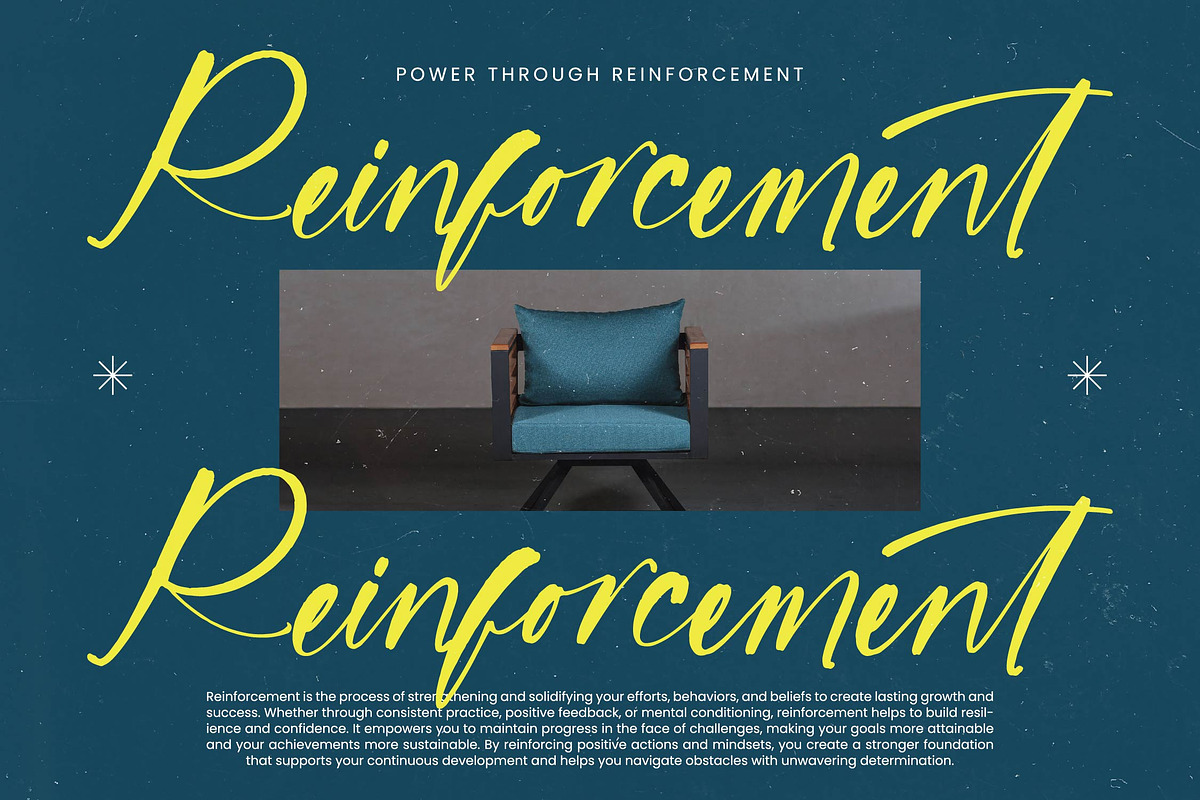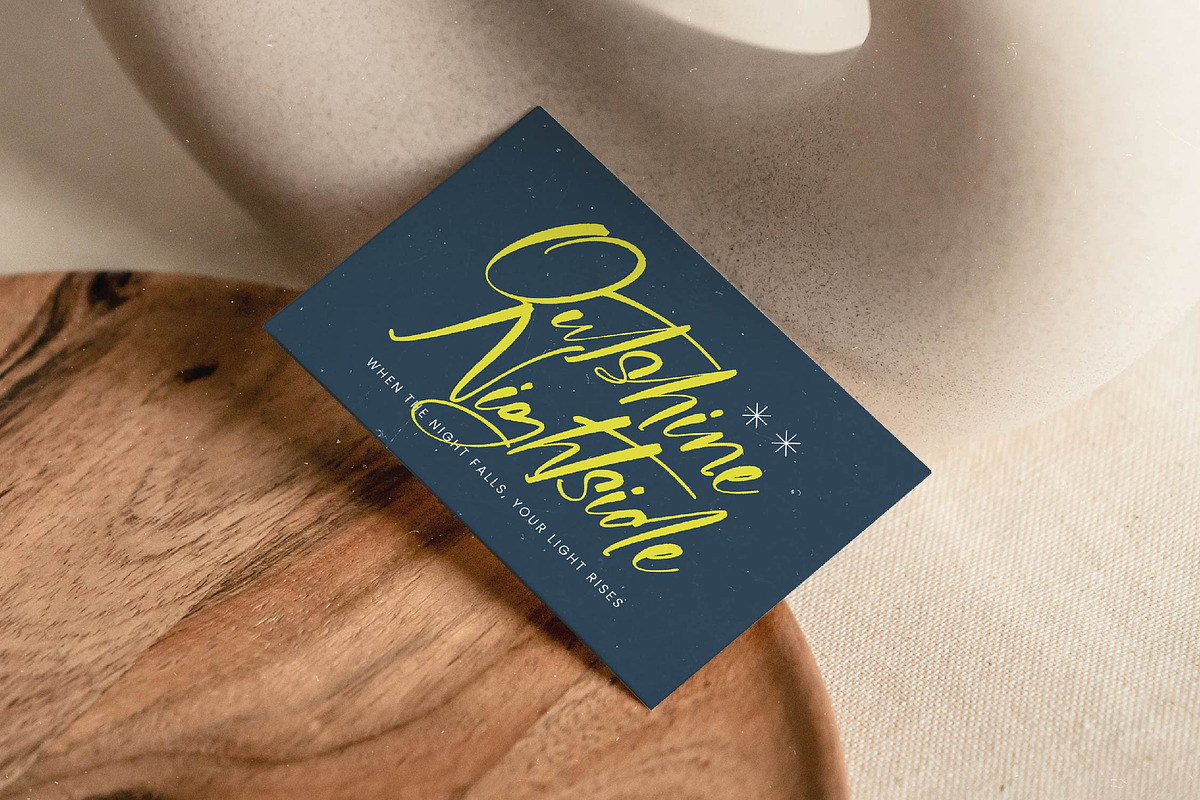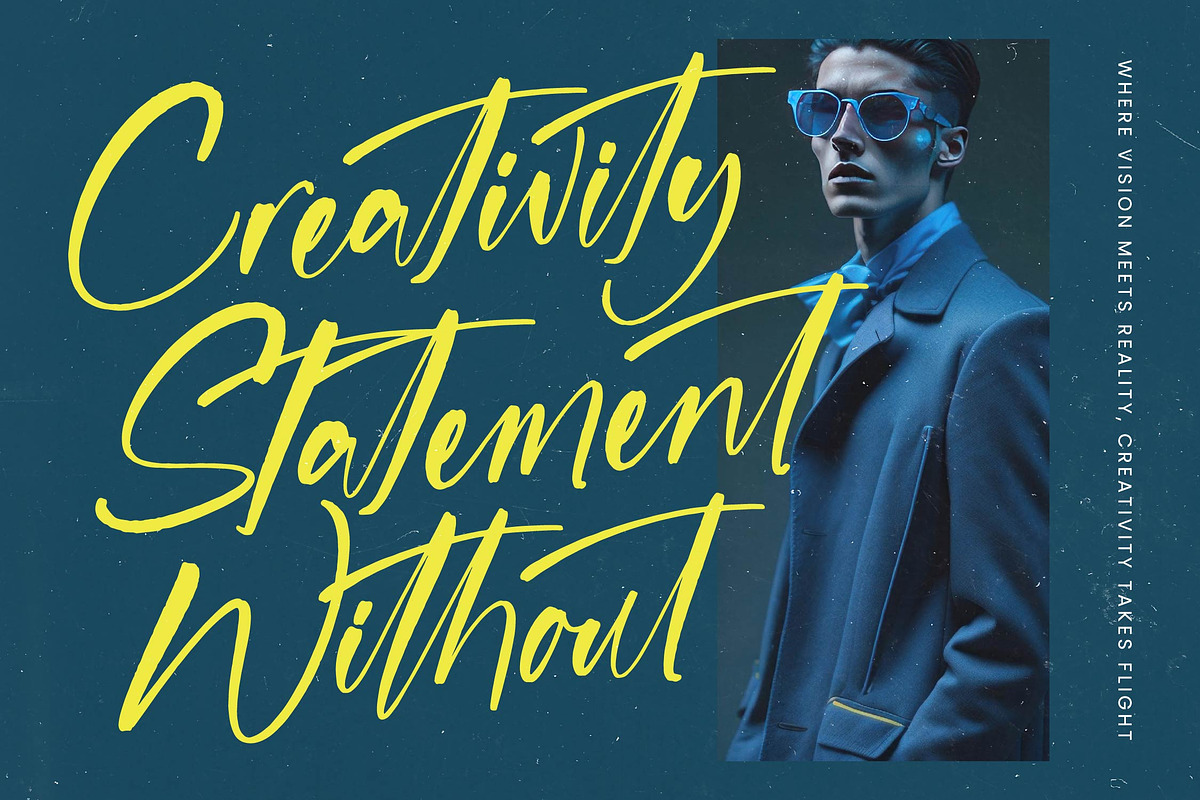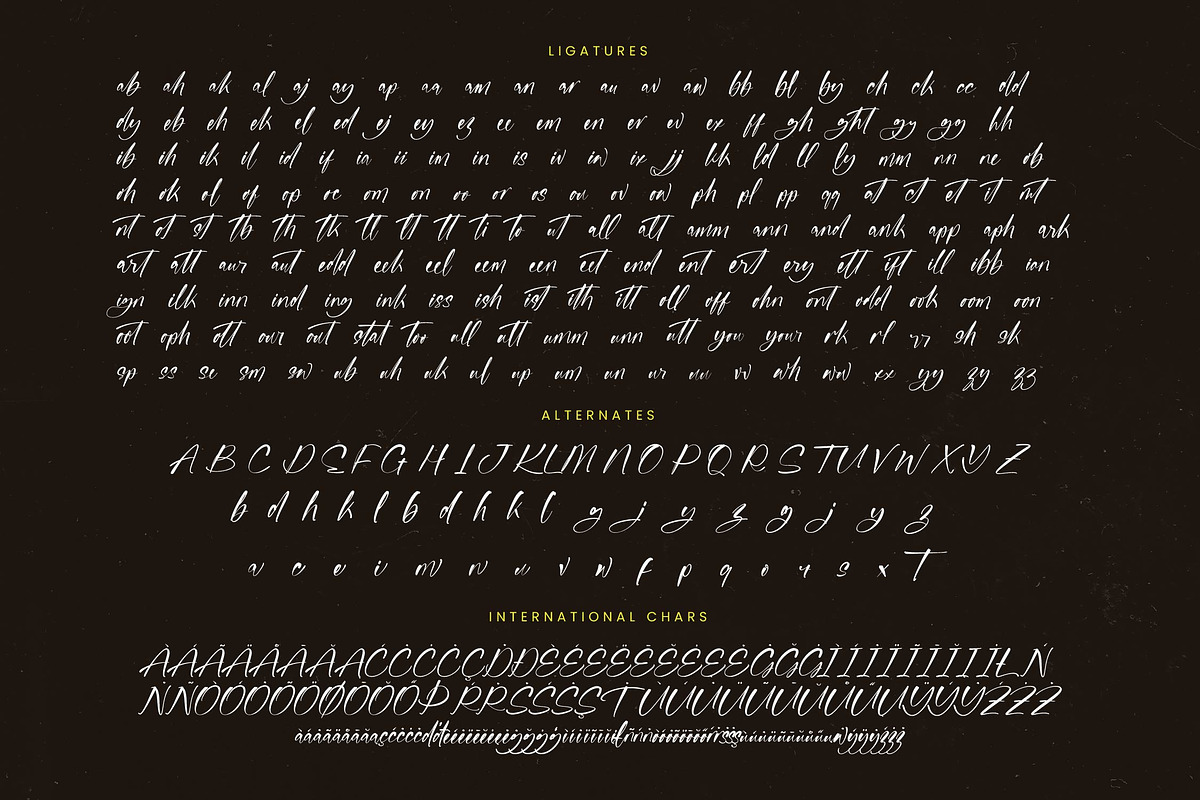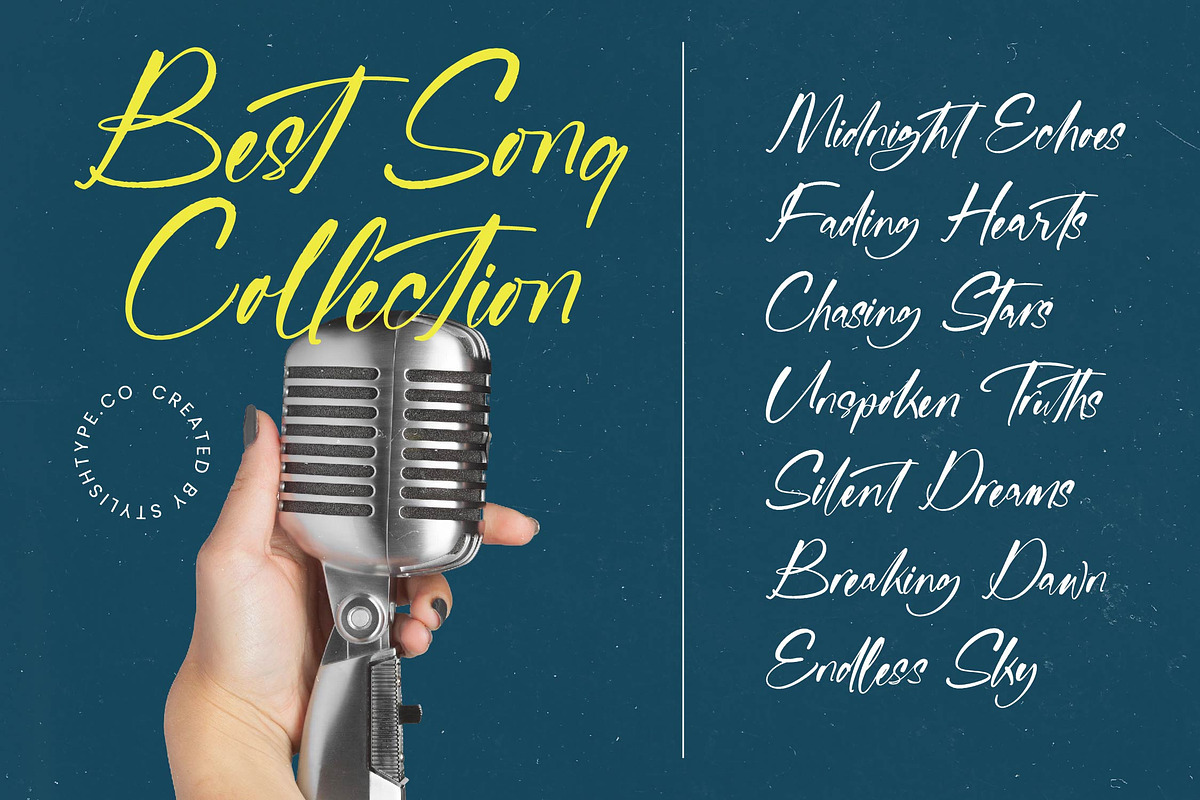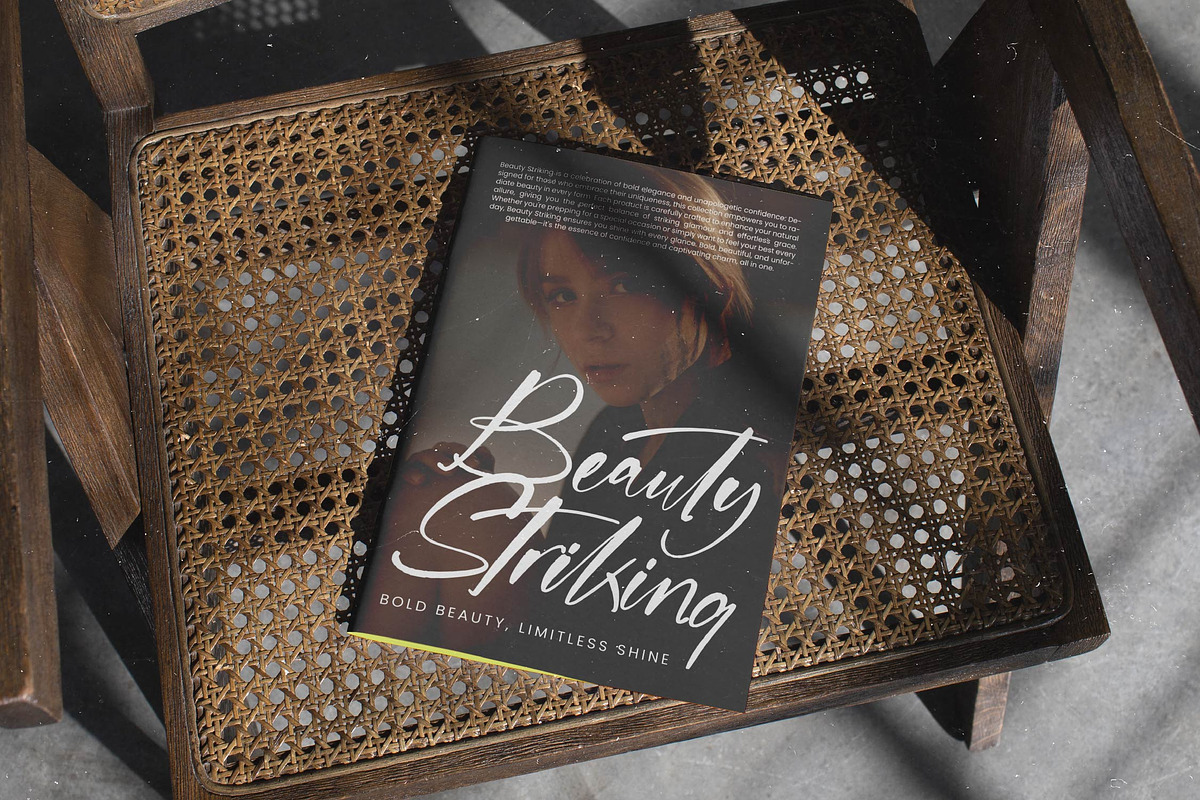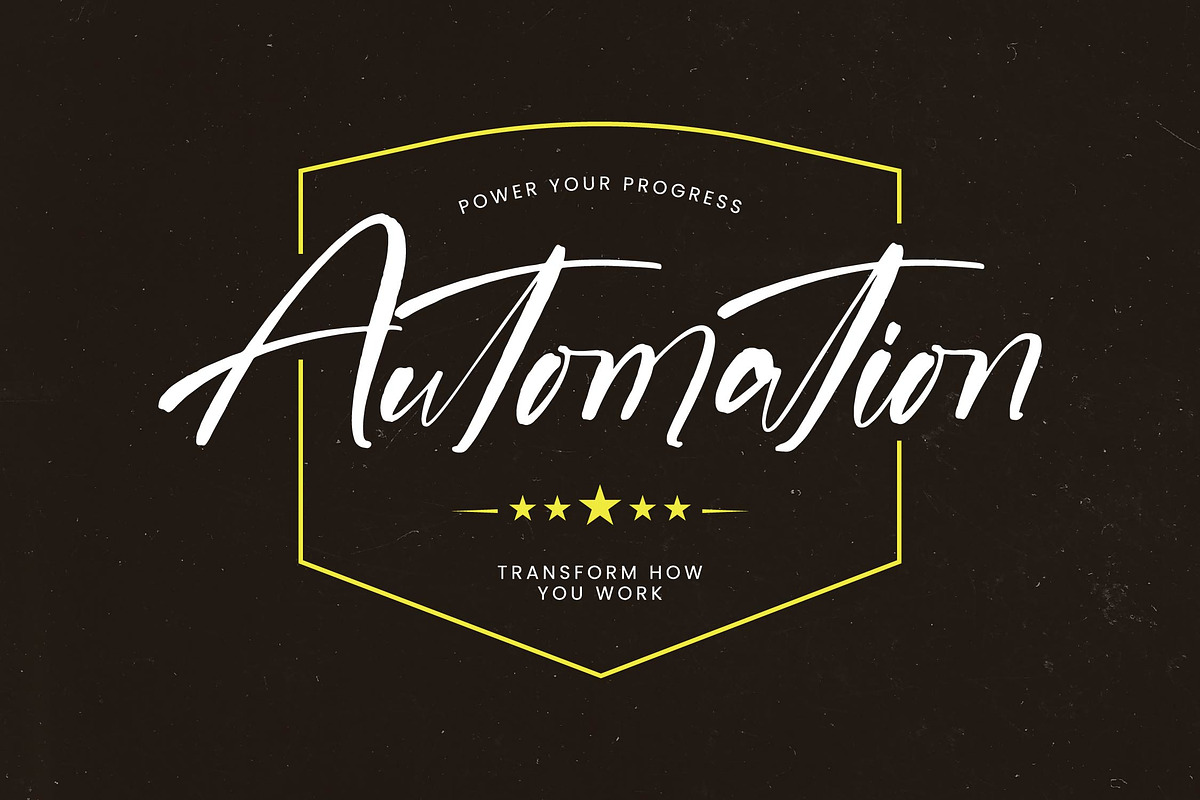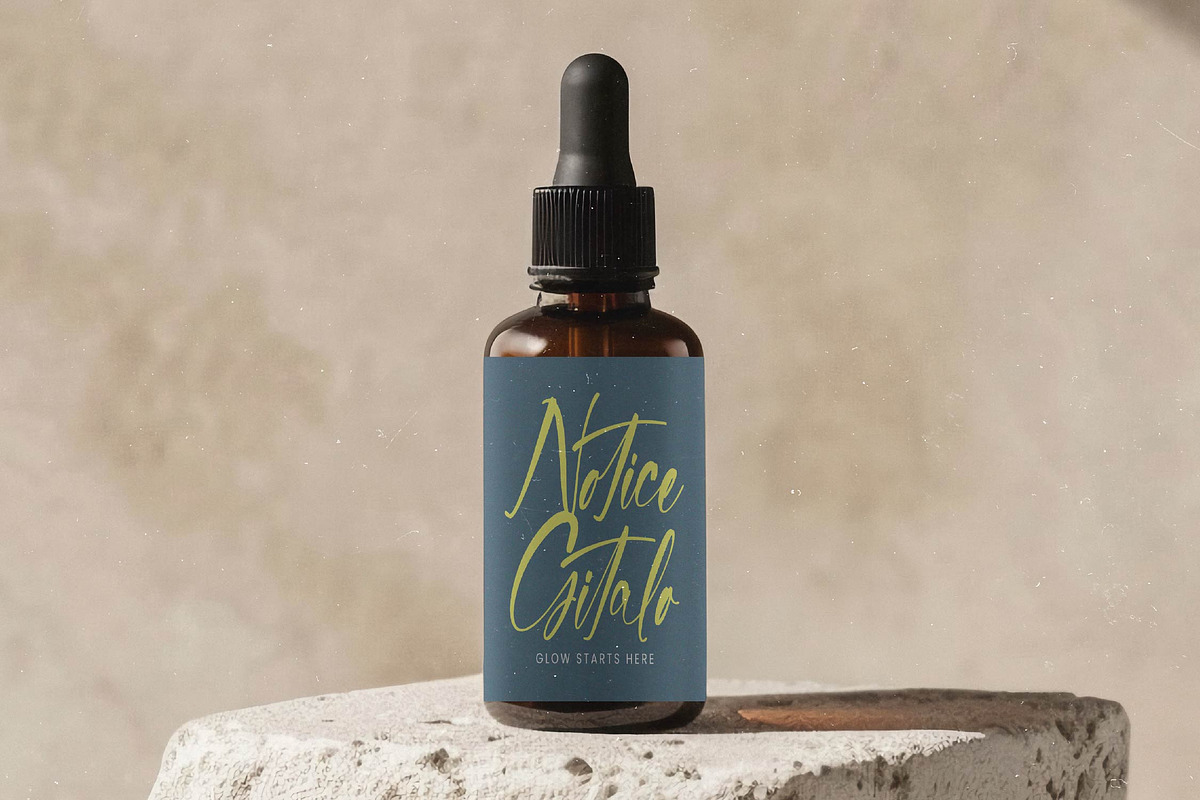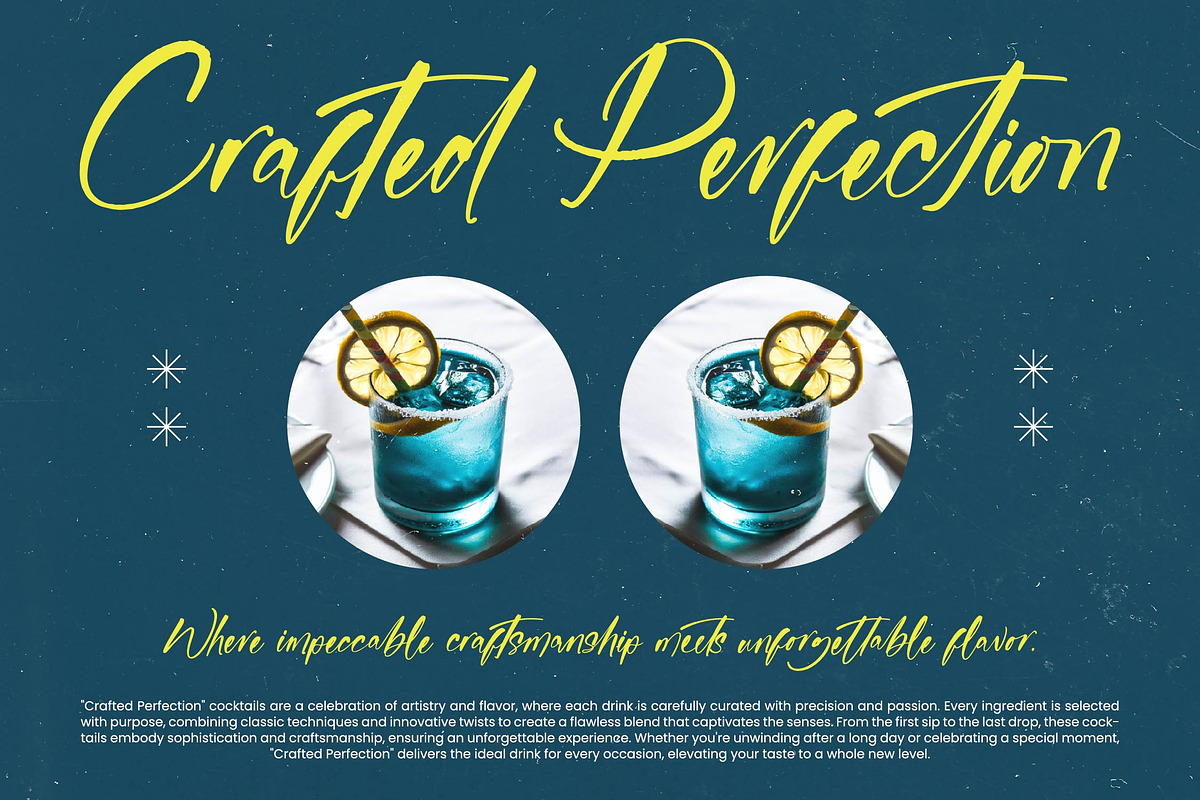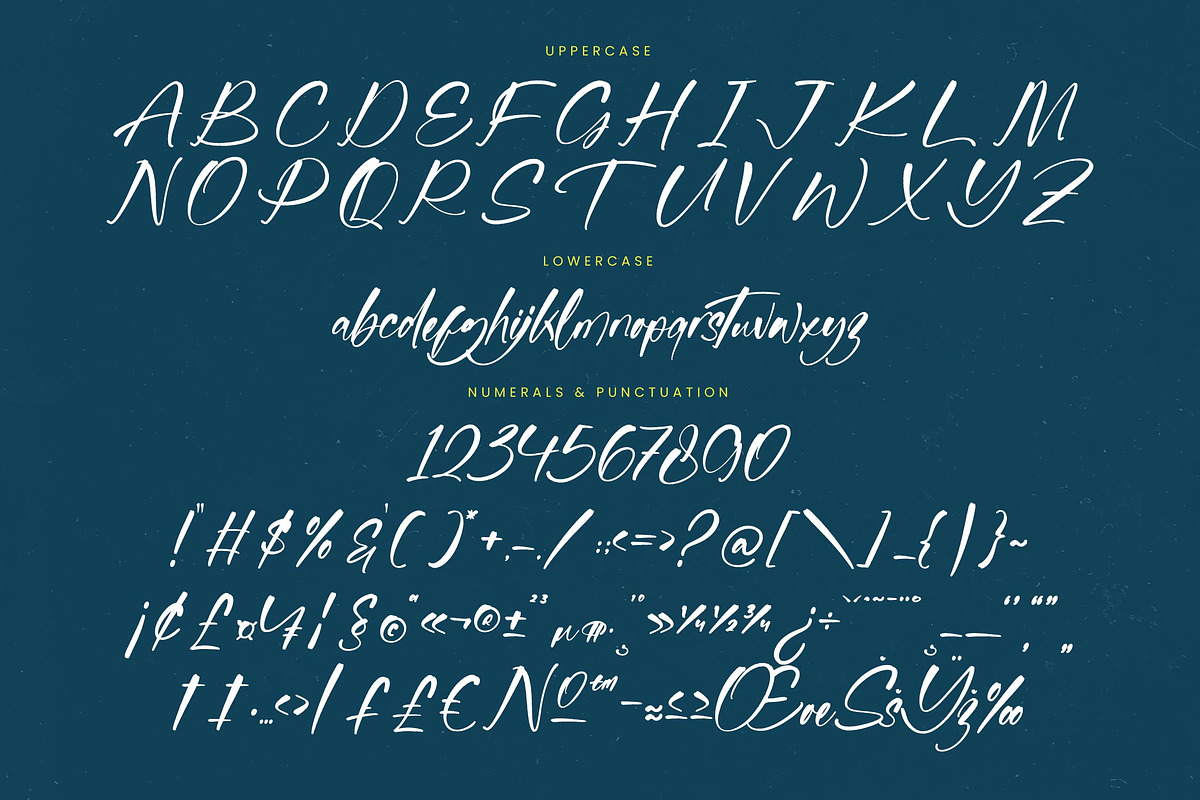
Mentally Positives Bold Brush Font
Mentally Positives - Bold Brush Font , from Stylishtype.Co , Suitable for any projects such as: logos, branding projects, homeware designs, product packaging, mugs, quotes, posters, shopping bags, t-shirts, book covers, name card, invitation cards, greeting cards, label, photography, watermark, special events, and all your other luxury and beautiful projects that need a Luxury Script taste.
- 187 Ligature 61 Alternates & Swashes